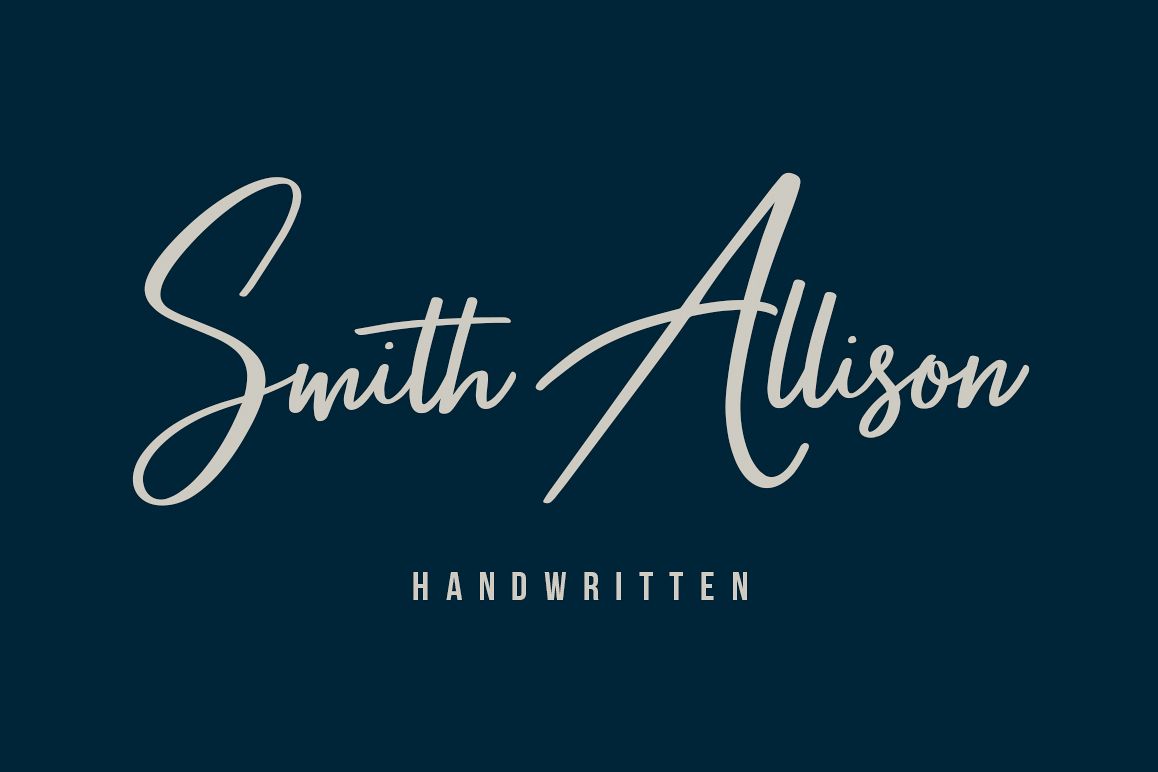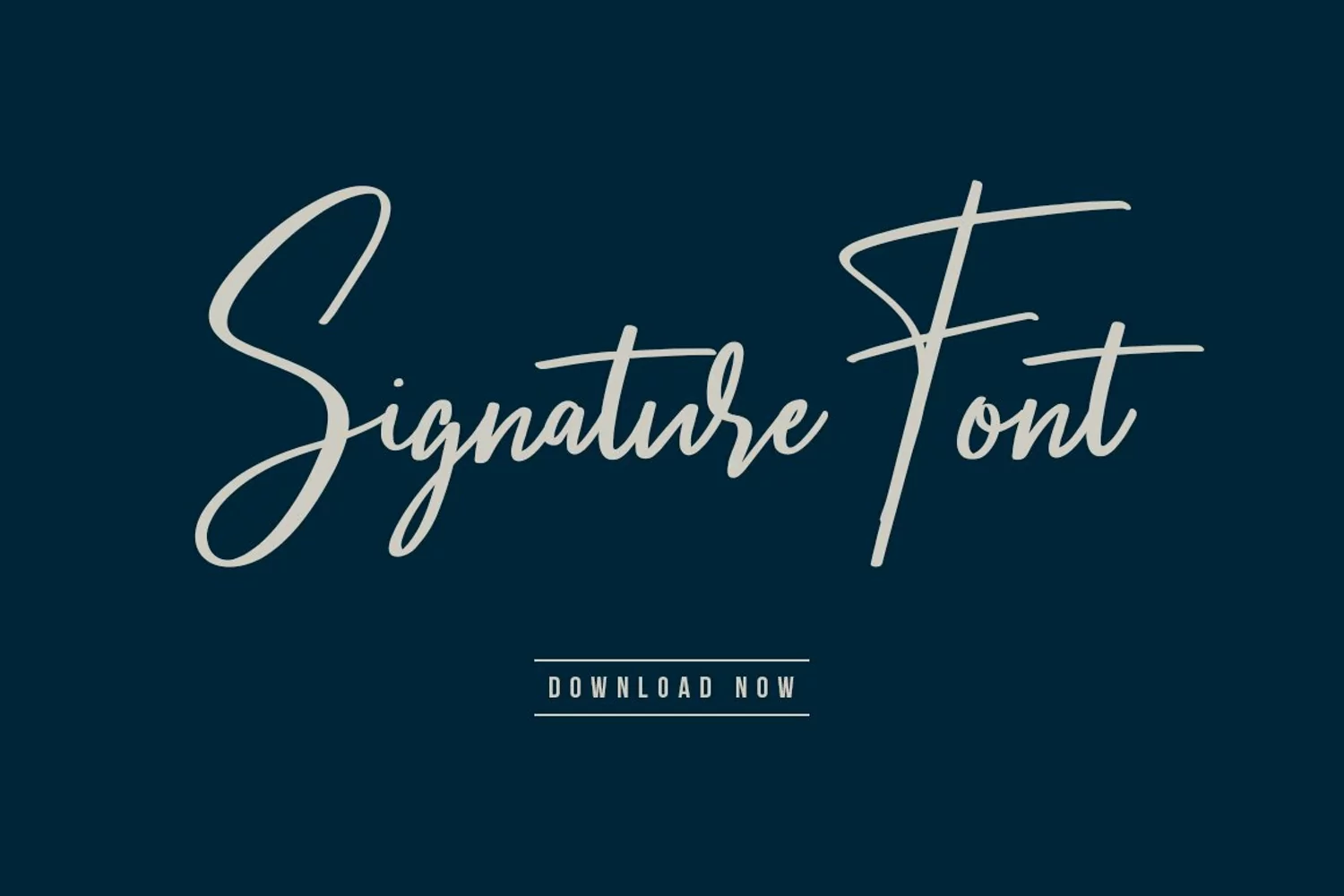
Give your designs an authentic handcrafted feel. "Smith Allison - Signature Font" is perfectly suited to signature, stationery, logo, typography quotes, magazine or book cover, website header, clothing, branding, packaging design and more. Free Ligatures.